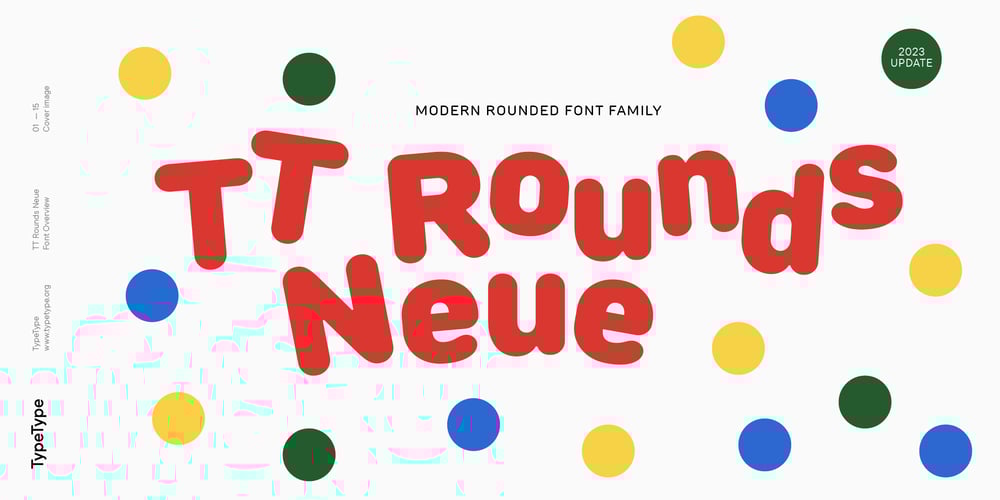
TT Rounds Neue Font Family was designed by Ivan Gladkikh, Marina Khodak, TypeType Team and published by TypeType. TT Rounds Neue contains 55 styles and family package options. We have updated TT Rounds Neue!TT Rounds Neue was released as a logical continuation of the TT Rounds and TT Rounds Condensed fonts, more modern and technically advanced.In the update, we have preserved the visual nature of the font, the proportions of the letters and the balance between bold and thin faces. We have made the typeface even more functional and convenient by fixing technical flaws, expanding the character set and adding a full-fledged variable font.In the new version of TT Rounds Neue, you will find additional extended Latin and Cyrillic characters, updated kerning and hinting. The font can be used for headings or for text typesetting. The typeface is optimized for web, print and packaging design. Thanks to its soft character and rounded shapes, it is suitable for decorating baby food and eco-products.TT Rounds Neue consists of 3 subfamilies: Compressed, Condensed and Normal. There are 55 faces in the font: 27 upright, 27 italic, and 1 variable font. Variability is across all three axes, thickness, slope, and width. Each style has 684 glyphs. The font has 29 OpenType features, including ligatures, a set of alternative characters, old-style figures, and many others.?Please note that we are removing the TT Rounds and TT Rounds Condensed fonts from the marketplace, but you can still get them by contacting TypeType’s commercial department directly commercial@typetype.orgTT Rounds Neue OpenType features: aalt, ccmp, locl, subs, sinf, sups, numr, dnom, frac, ordn, tnum, onum, lnum, pnum, case, salt, liga, dlig, calt, ss01, ss02, ss03, ss04, ss05, ss06, ss07, ss08, ss09, ss10 TT Rounds Neue language support: English, Albanian, Basque, Catalan, Croatian, Czech, Danish, Dutch, Estonian, Finnish, French, German, Hungarian, Icelandic, Irish, Italian, Latvian, Lithuanian, Luxembourgish, Moldavian (lat), Montenegrin (lat), Norwegian, Polish, Portuguese, Romanian, Serbian (lat), Slovak, Slovenian, Spanish, Swedish, Swiss German, Valencian, Azerbaijani, Kazakh (lat), Turkish, Acehnese, Banjar, Betawi, Bislama, Boholano, Cebuano, Chamorro, Fijian, Filipino, Hiri Motu, Ilocano, Indonesian, Javanese, Khasi, Malay, Marshallese, Minangkabau, Nauruan, Nias, Palauan, Rohingya, Salar, Samoan, Sasak, Sundanese, Tagalog, Tahitian, Tetum, Tok Pisin, Tongan, Uyghur, Afar, Asu, Aymara, Bemba, Bena, Chiga, Embu, Gikuyu, Gusii, Kabuverdianu, Kalenjin, Kamba, Kikuyu, Kinyarwanda, Kirundi, Kongo, Luganda, Luo, Luyia, Machame, Makhuwa-Meetto, Makonde, Malagasy, Mauritian Creole, Meru, Morisyen, Ndebele, Nyankole, Oromo, Rombo, Rundi, Rwa, Samburu, Sango, Sangu, Sena, Seychellois Creole, Shambala, Shona, Soga, Somali, Sotho, Swahili, Swazi, Taita, Tsonga, Tswana, Vunjo, Xhosa, Zulu, Maori, Alsatian, Aragonese, Arumanian, Belarusian (lat), Bosnian (lat), Breton, Colognian, Cornish, Corsican, Faroese, Frisian, Friulian, Gaelic, Gagauz (lat), Galician, Interlingua, Judaeo-Spanish, Karaim (lat), Kashubian, Ladin, Leonese, Manx, Occitan, Rheto-Romance, Romansh, Scots, Silesian, Sorbian, Vastese, Volapu?k, Vo?ro, Walloon, Walser, Karakalpak (lat), Kurdish (lat), Talysh (lat), Tsakhur (Azerbaijan), Turkmen (lat), Zaza, Aleut (lat), Cree, Haitian Creole, Hawaiian, Innu-aimun, Karachay-Balkar (lat), Karelian, Livvi-Karelian, Ludic, Tatar, Vepsian, Guarani, Nahuatl, Quechua,, Russian, Belarusian (cyr), Bosnian (cyr), Bulgarian (cyr), Macedonian, Serbian (cyr), Ukrainian, Gagauz (cyr), Moldavian (cyr), Kazakh (cyr), Kirghiz, Tadzhik, Turkmen (cyr), Uzbek (cyr), Lezgian, Abazin, Agul, Archi, Avar, Dargwa, Ingush, Kabardian, Kabardino-Cherkess, Karachay-Balkar (cyr), Khvarshi, Kumyk, Lak, Nogai, Ossetian, Rutul, Tabasaran, Tsakhur, Buryat, Komi-Permyak, Komi-Yazva, Komi-Zyrian, Shor, Siberian Tatar, Tofalar, Touva, Bashkir, Chechen (cyr), Chuvash, Erzya, Kryashen Tatar, Mordvin-moksha, Tatar Volgaic, Udmurt, Uighur, Rusyn, Karaim (cyr), Montenegrin (cyr), Romani (cyr), Dungan, Karakalpak (cyr), Shughni, Mongolian, Adyghe, Kalmykk